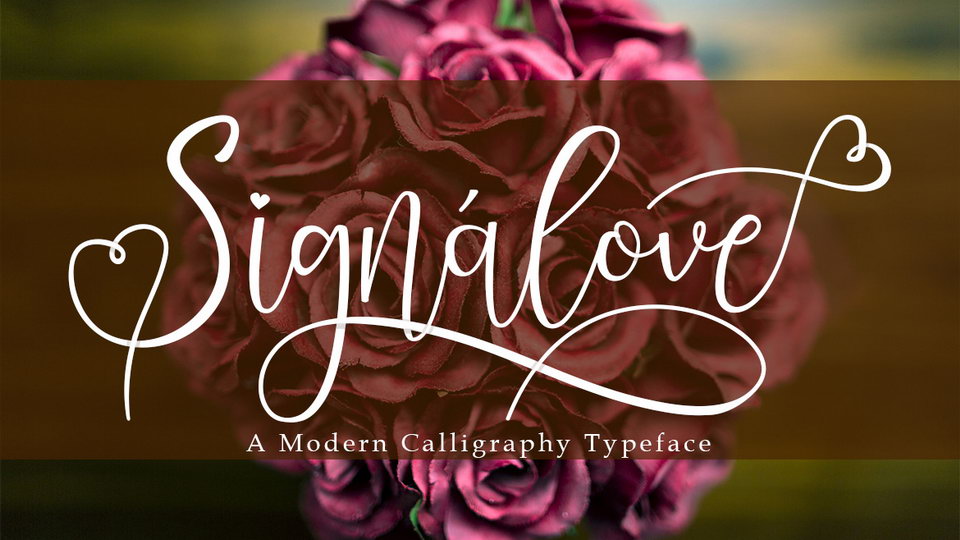
Signalove Script Font › Fontesk
Download Singnalove font, a romantic modern calligraphy typeface with various of alternates to make your designs into a stunning result. Make a special design or craft with Signalove and be happy as always.